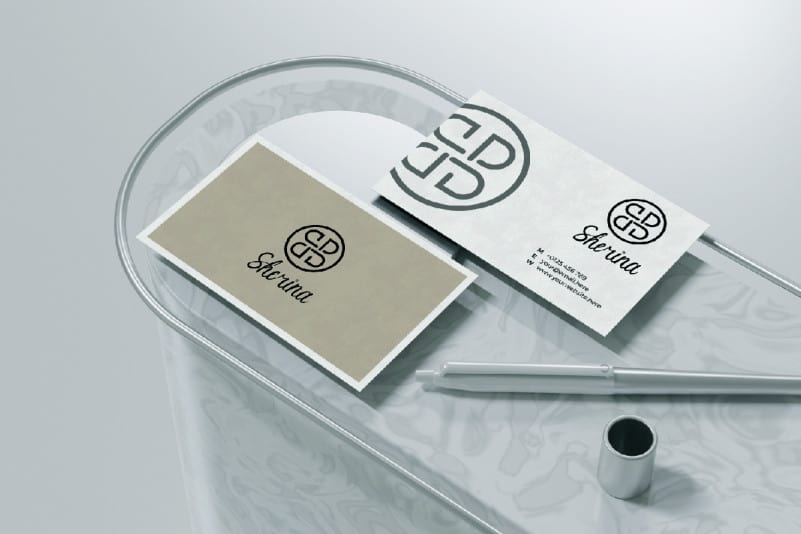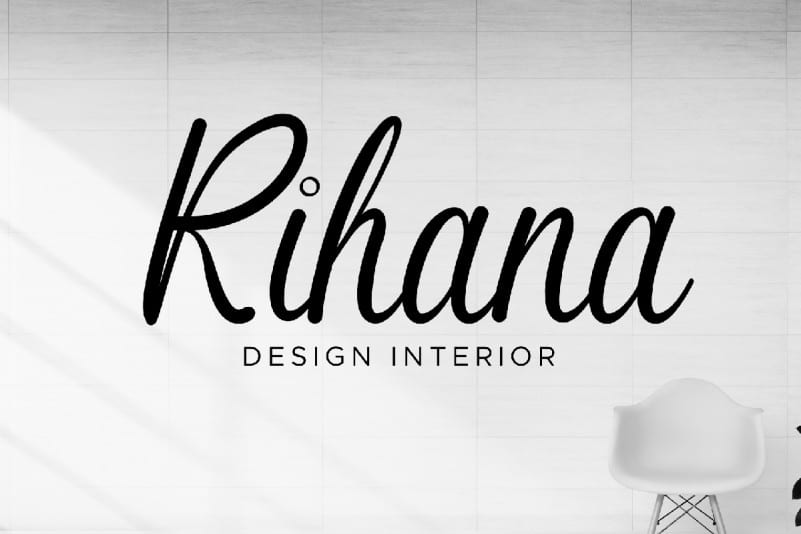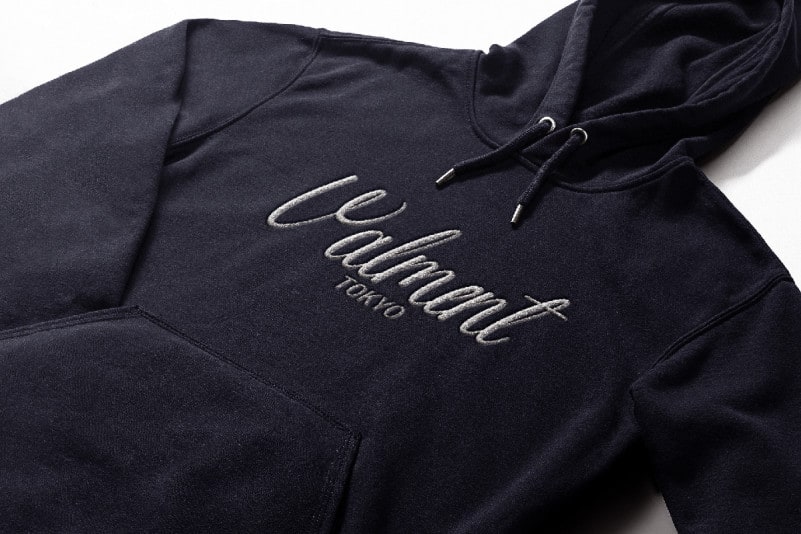
Optimistically Script Font
Optimistically Script Font is a beautiful calligraphy handwriting font with stunning characters, alternatives and ligatures. This font will be awesome for wedding, florist, sales marketing, professional, dentist, real estate, music, videography etc This font is crafted carefully in every its single letter so we can make sure it has great looking, inspired by the handwriting of Italian women and ancient manuscripts. Carefully designed to work together in harmony and This one should make your designs instantly professional and jaw-dropping!
Optimistically Script Font includes full set of Uppercase and Lowercase Basic Characters, Numerals and Punctuation. Also it contains ligatures to make it flowless characters to perfectly make awesome look that add more aesthetic fonts to perfect your extraordinary project.